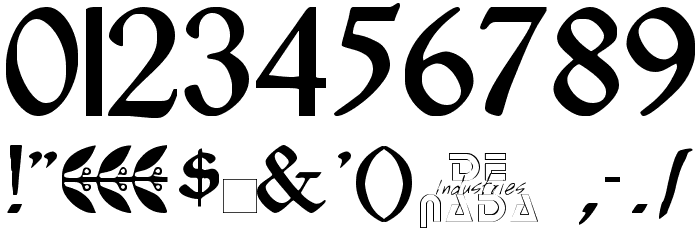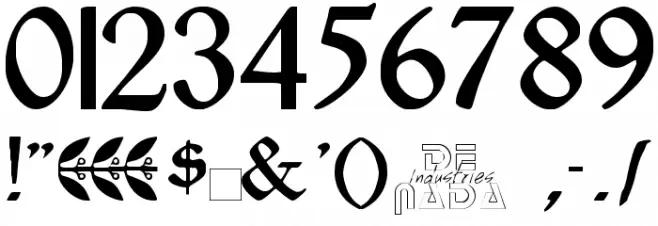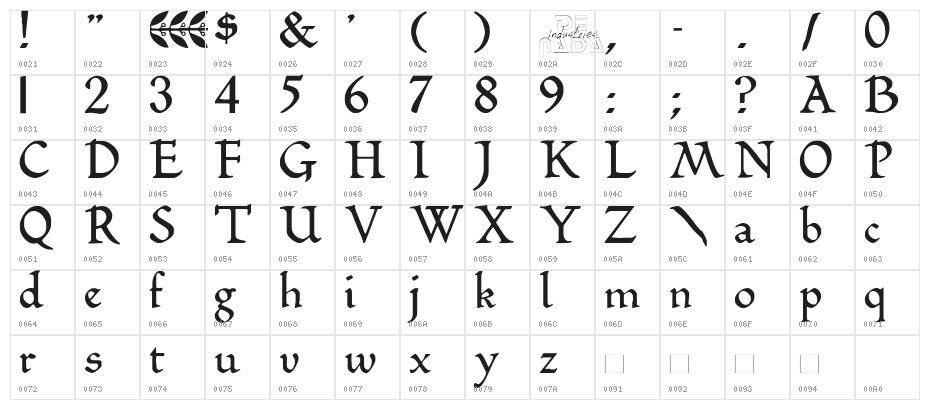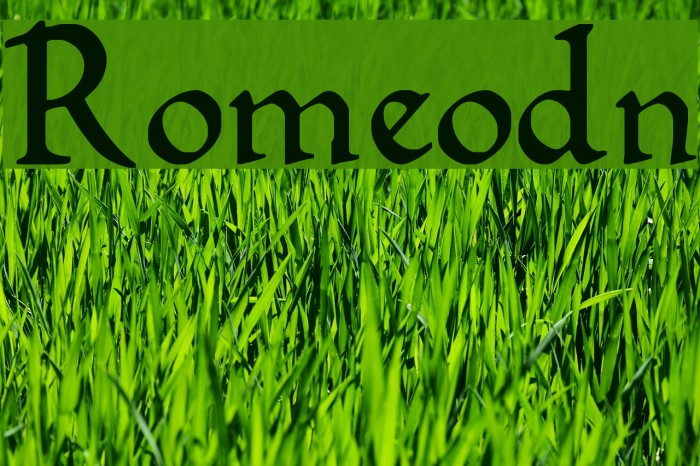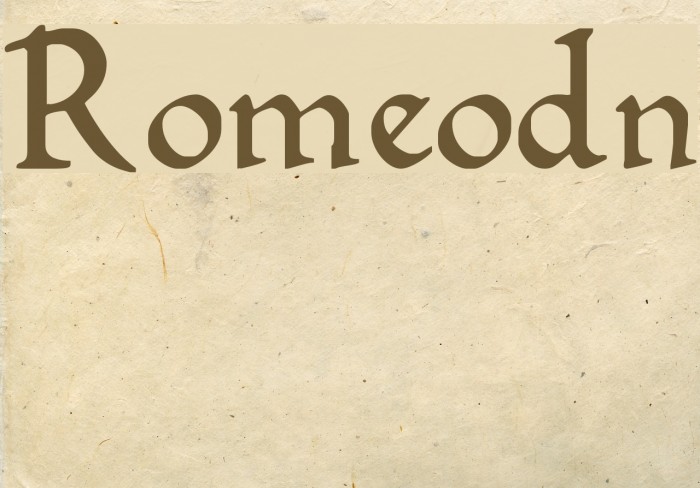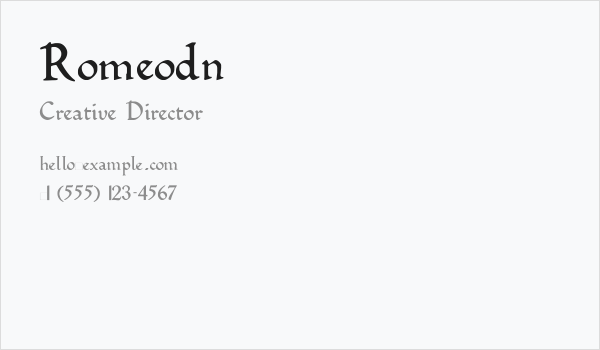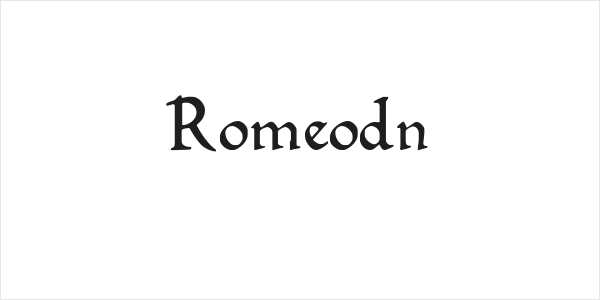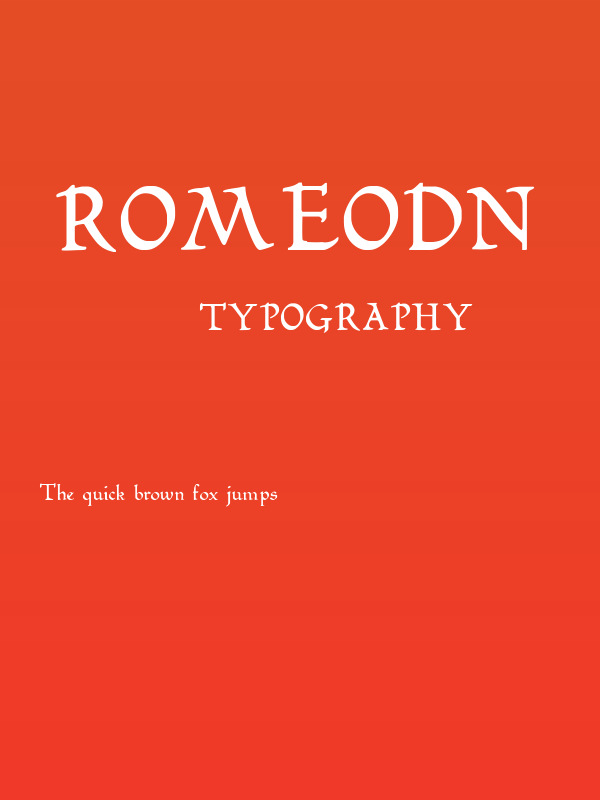
Romeodn Font
Romeodn Description
This font exhibits a classic serif style with a touch of elegance and sophistication. The uppercase letters are bold and commanding, featuring distinct serifs that add a traditional feel. The lowercase letters maintain a consistent style, with smooth curves and a balanced weight that complements the uppercase set. The numerals are clear and legible, designed to stand out with their bold presence. Special characters are thoughtfully crafted, maintaining the overall aesthetic of the font. The font's design is suitable for projects that require a formal and timeless appearance, making it ideal for print media, invitations, and branding materials.